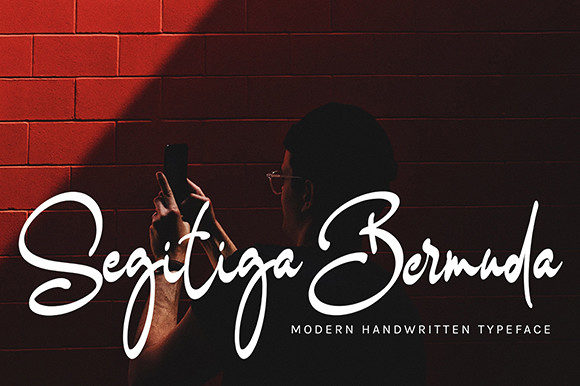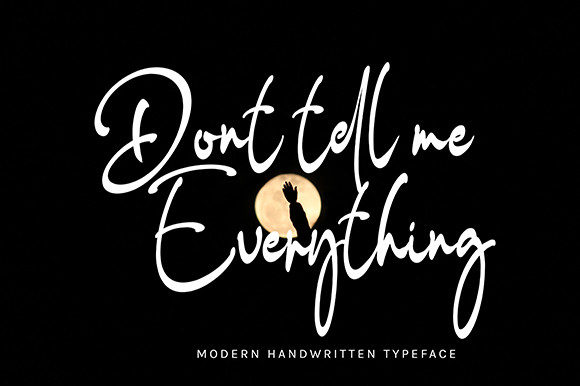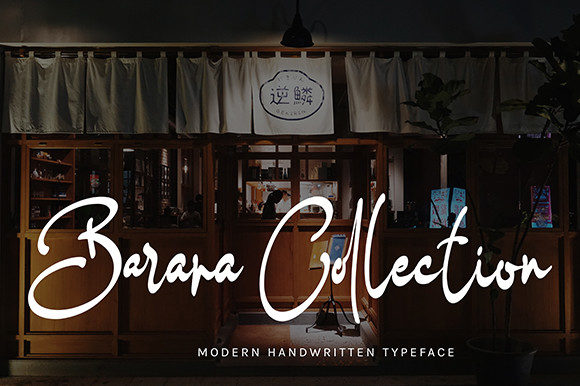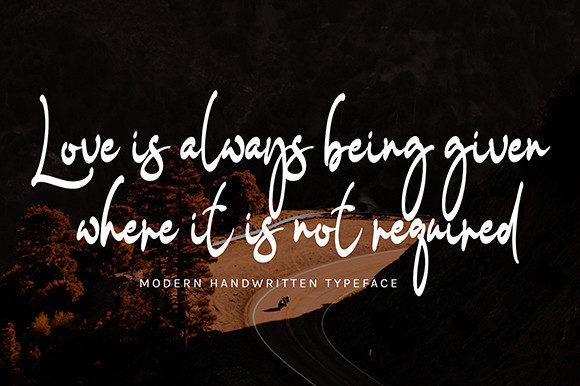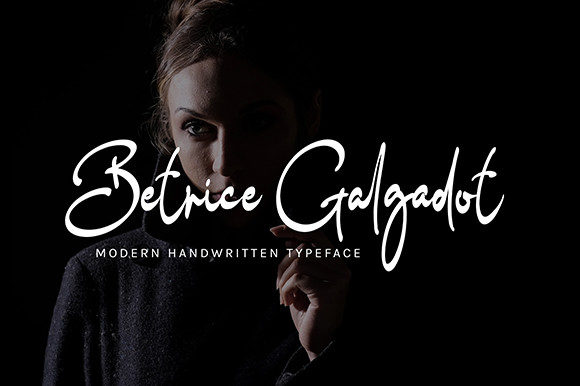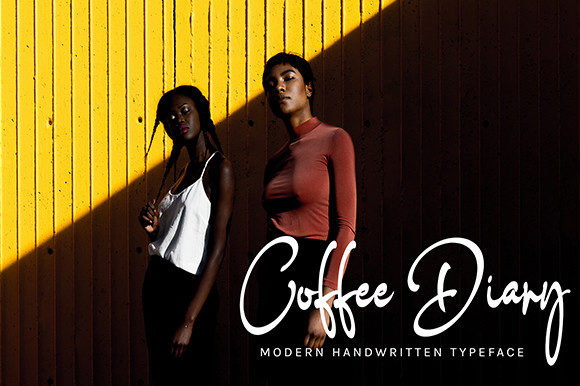
Bertiga Sepatu Font: Elevate Your Designs with a Natural and Casual Touch
In the world of design, fonts play a pivotal role in conveying messages, evoking emotions, and creating aesthetic appeal. For designers and crafters looking for a font that exudes a natural and casual vibe, Bertiga Sepatu is an excellent choice. This handwritten font is not only versatile but also capable of transforming any design project into a visually stunning masterpiece. In this article, we’ll delve into the features and benefits of the Bertiga Sepatu font and explore how it can elevate your designs.
What is Bertiga Sepatu Font?
Bertiga Sepatu is a natural and casual-looking handwritten font, designed to bring a touch of warmth and authenticity to any design project. Its unique, flowing script makes it perfect for a wide range of applications, from posters and flyers to prints and digital media. The font’s casual nature allows it to connect with audiences on a more personal level, making it ideal for designs that aim to convey a friendly or approachable tone.
Key Features of Bertiga Sepatu Font
- Natural and Casual Aesthetic: The font boasts a handwritten look that feels organic and effortless, perfect for designs that require a personal touch.
- Versatility: Whether you’re working on a poster, flyer, or any print material, Bertiga Sepatu can adapt seamlessly, ensuring your design stands out.
- Emotional Connection: The casual and friendly vibe of the font helps in creating an emotional connection with the audience, making your message more relatable.
Bertiga Sepatu offers numerous benefits for designers and crafters looking to enhance their projects. Here are some of the advantages of incorporating this font into your designs:
- Consistency: Using a consistent font across your design projects helps in building a recognizable brand identity, and Bertiga Sepatu can be a part of this cohesive look.
- Creativity Boost: Sometimes, all you need is the right font to spark creativity. Bertiga Sepatu’s unique style can inspire new ideas and perspectives for your designs.
Bertiga Sepatu is more than just a font; it’s a design element that can transform your projects with its natural and casual charm. Its versatility, ease of use, and emotional appeal make it an excellent choice for designers and crafters looking to add a personal touch to their work. By incorporating Bertiga Sepatu into your designs, you’re not just choosing a font; you’re embracing a style that resonates with audiences and elevates your creative projects. So, explore the endless possibilities with Bertiga Sepatu and watch your designs come to life in a whole new way.